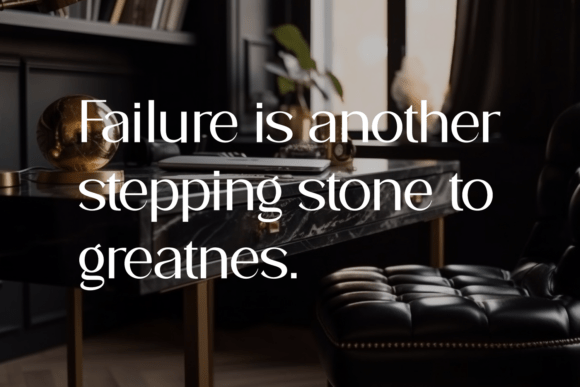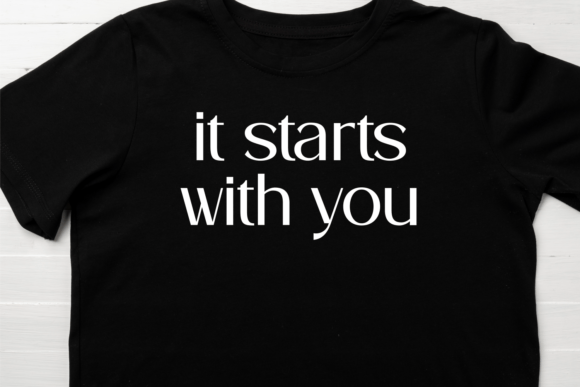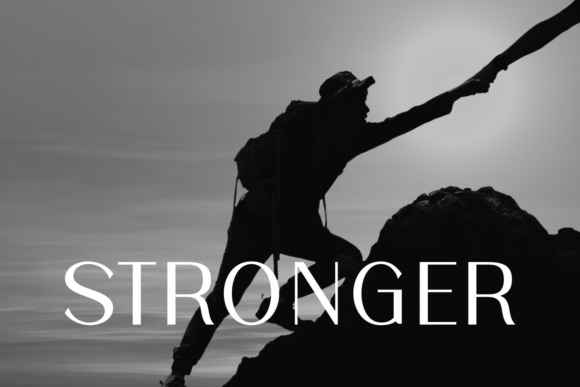
Introduction to Retain Balance Font Font
Fonts play a crucial role in design, and the Retain Balance Font font is a typeface that brings both character and versatility to any project. Whether you’re working on a branding project, a website, or a print design, the Retain Balance Font font offers a unique style that can elevate your work.
Retain Balance is a stylish sans serif typeface that combines modern elegance with timeless appeal.
Featuring sharp angles and graceful curves, this font is designed for high-impact headlines, fashion branding, lifestyle blogs, and social media graphics Its clean strokes and dynamic proportions deliver an editorial look thatβs bold yet refined.
Key Features of Retain Balance Font Font
Why Choose Retain Balance Font Font?
The Retain Balance Font font is more than just a typeface β it’s a design tool that helps you communicate your message with style and clarity. Its unique character set and versatile design make it suitable for a wide range of applications, from elegant invitations to bold headlines.
With its carefully crafted letterforms and balanced proportions, the Retain Balance Font font ensures readability and visual appeal across all mediums.
What makes Retain Balance Font font special?
The Retain Balance Font font stands out with its unique design, exceptional readability, and versatility across various design applications.